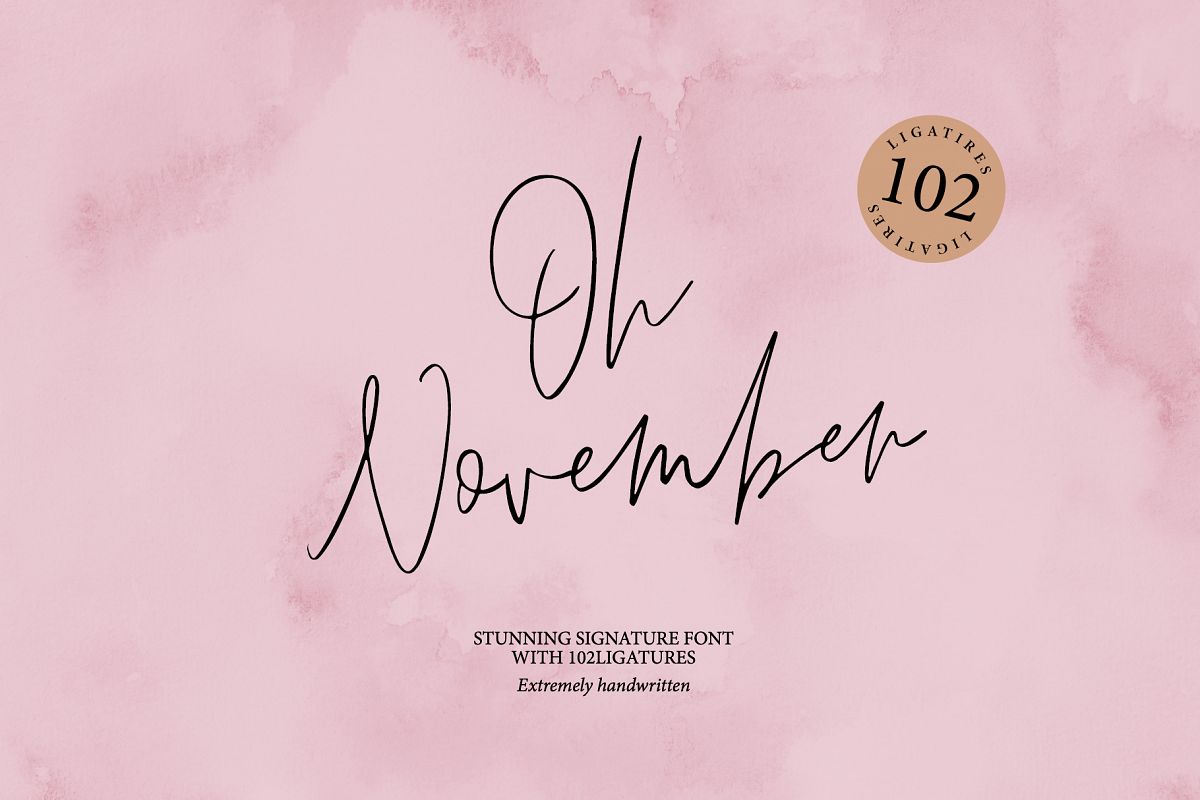
OH NOVEMBER handwritten font
My new font was inspired by the game with different signature styles! I also added 102 ligatures to it. That's a lot!!! The result is a light and nice font that looks completely handdrawn.
Oh November will look beautiful on Christmas and holiday invitations, wedding invites and stationery, logos, and more. I love using it for emphasis words and pairing it with serifs
• Support ALL European Languages